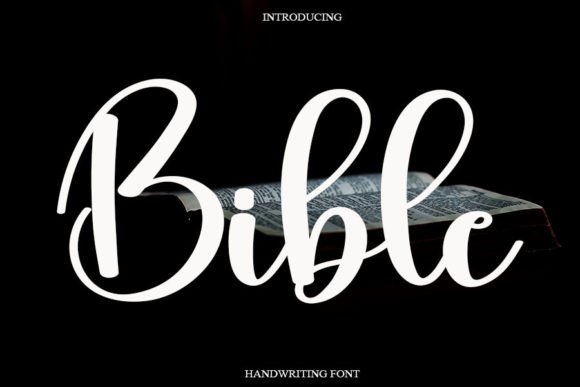
The Sweet Charm of Bible Font: Elevating Designs with a Luxurious Touch
Have you ever been in the middle of a design project, and suddenly, it feels like something’s missing? You’re not quite sure what it is, but you know it’s not quite right. I recall a similar experience while working on a luxury branding project for a high-end boutique. My client wanted a font that exuded elegance and sophistication, but I was struggling to find the perfect fit. That’s when I stumbled upon the Bible Font, and it completely transformed my design.
A Personal Review: What I Love About Bible Font
The Bible Font is a sweet and beautiful handwritten font that features characters dancing along the baseline, adding a touch of luxury to any design project. Here are some things I love about this font:
• ✨ Elegant and sophisticated feel, perfect for high-end branding and luxury designs
• ✅ Unique character set with dancing baseline, adding a touch of whimsy and playfulness
• 💫 Highly legible, even at small font sizes, making it perfect for body text and captions
• 🎨 Versatile and works well with a variety of design styles, from modern to vintage
While I adore the Bible Font, there are a few quirks to be aware of:
• 🤔 Limited character set compared to some other fonts, which may limit its use for certain projects
• ⚠️ May not work well with very bold or bright color schemes, as it can get lost in the design
The Designer Inspiration Behind Bible Font
The Bible Font was designed with the intention of creating a luxurious and elegant handwritten font that would add a touch of sophistication to any design project. The designer drew inspiration from classic calligraphy and modern typography, resulting in a unique and beautiful font that’s perfect for high-end branding and luxury designs.
What is the Bible Font best suited for? The Bible Font is best suited for high-end branding, luxury designs, and elegant typography projects.
Is the Bible Font suitable for body text? Yes, the Bible Font is highly legible and suitable for body text, even at small font sizes.
Is the Bible Font available in multiple languages? The Bible Font may not support all languages, but it does support a range of characters and glyphs.